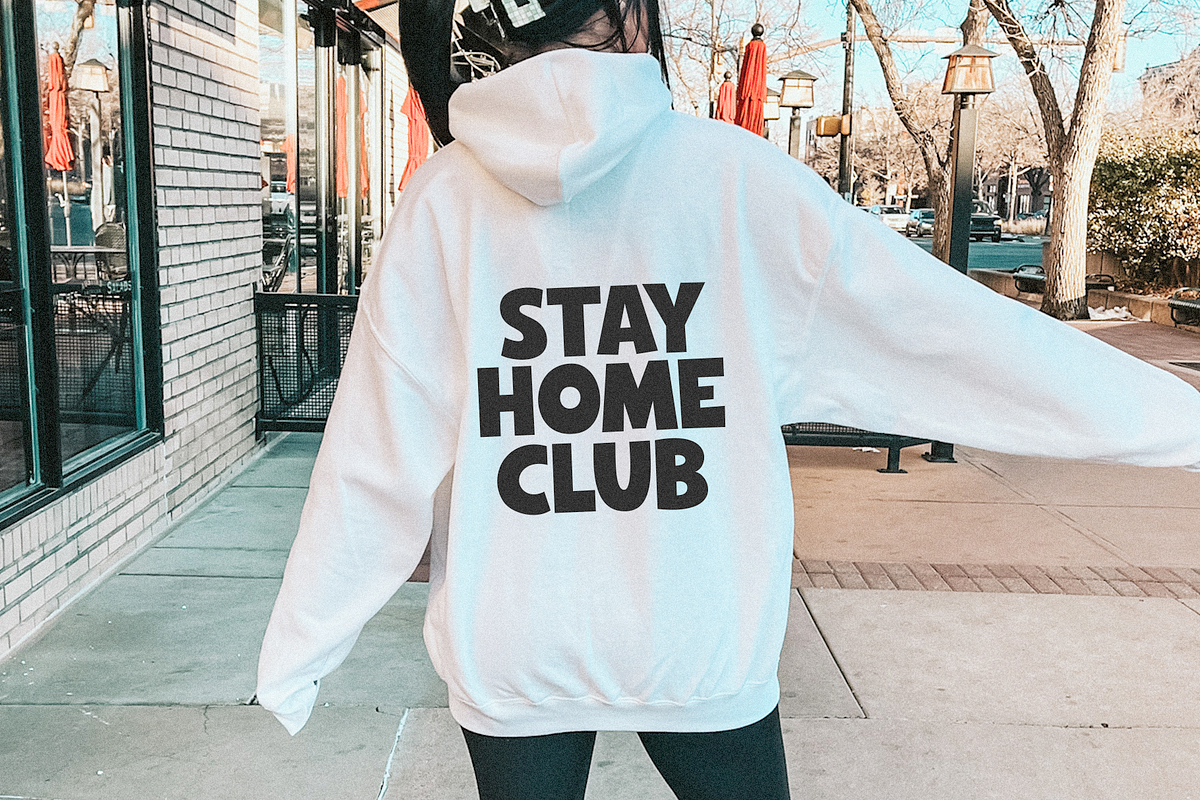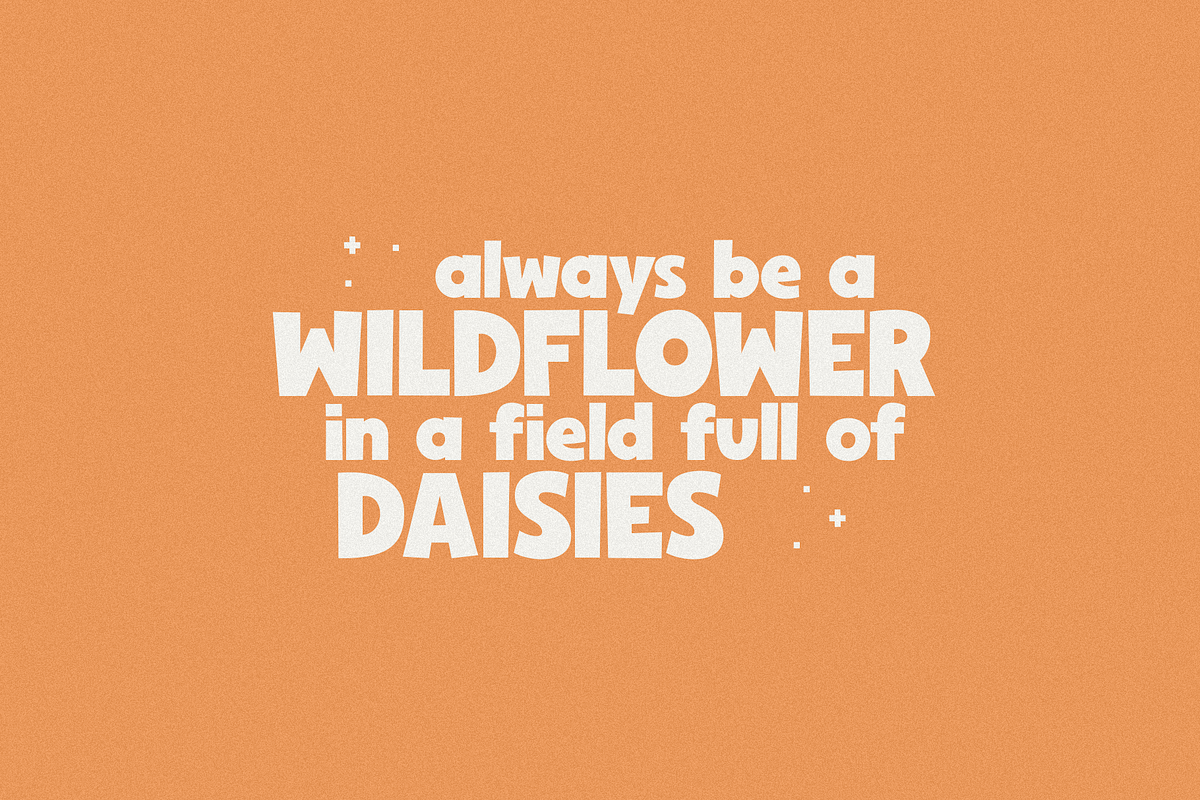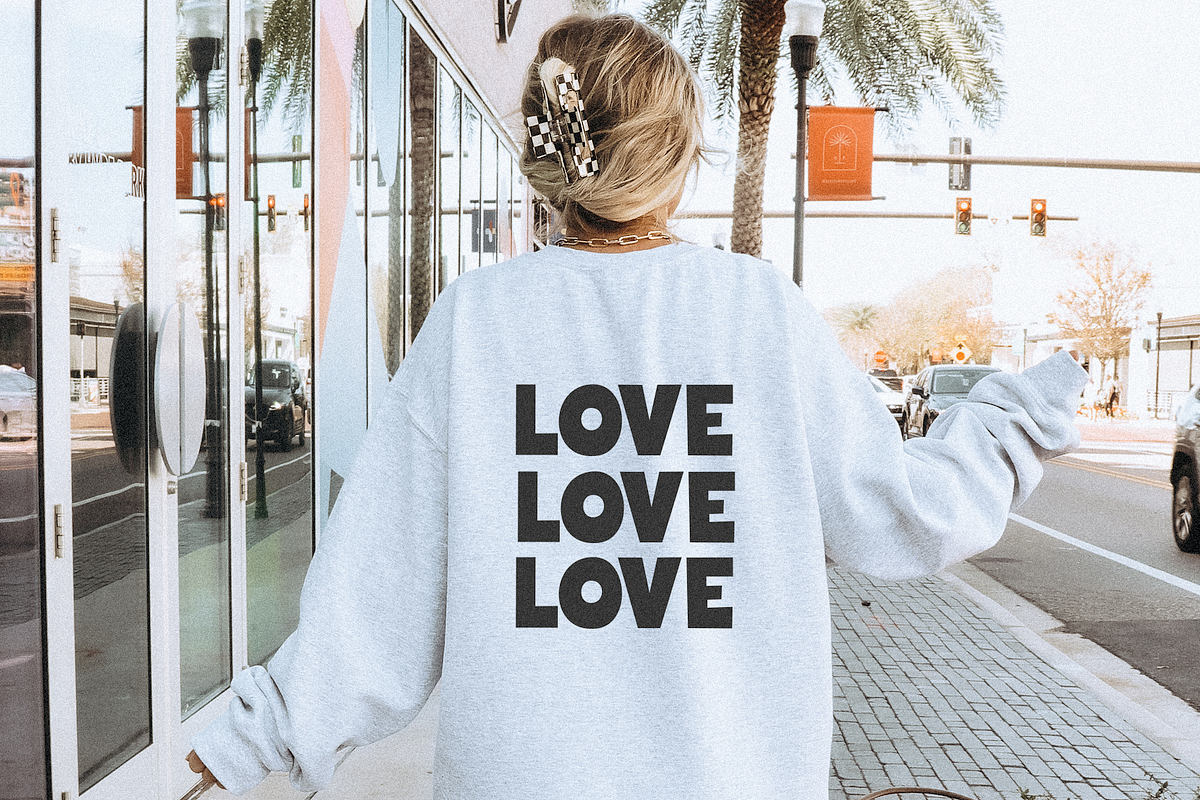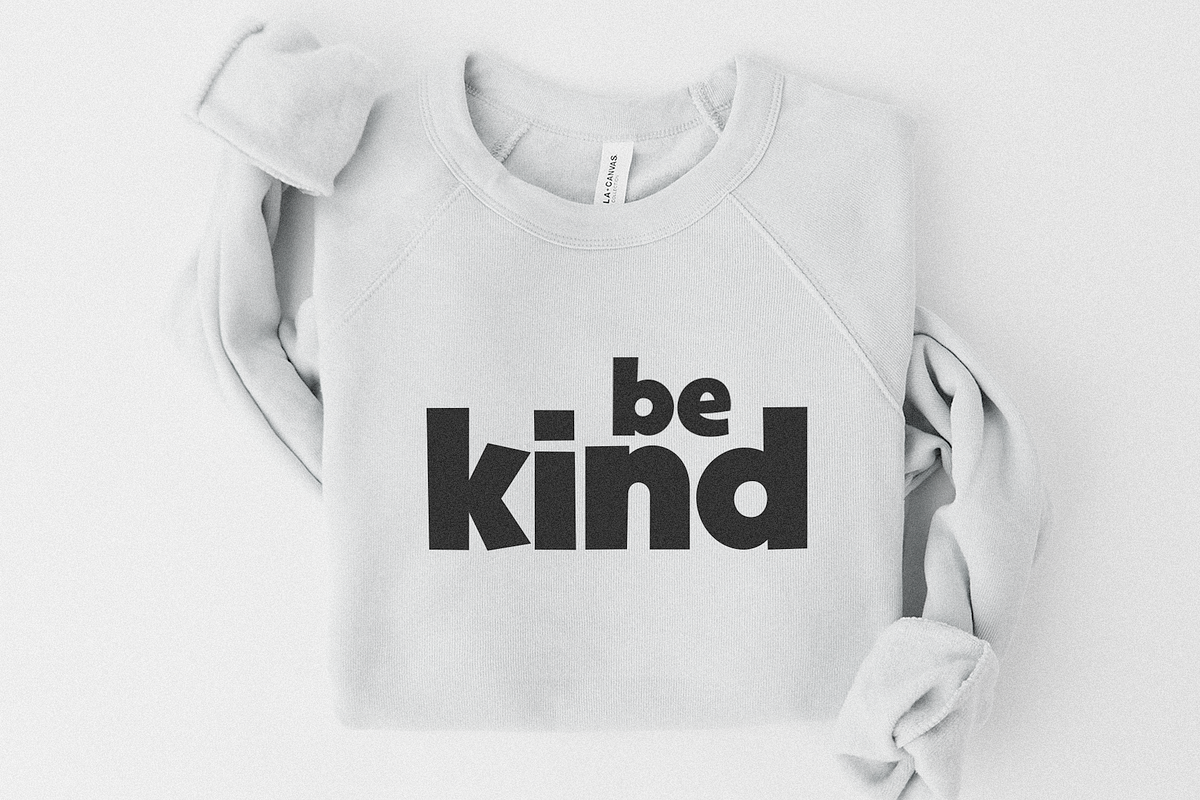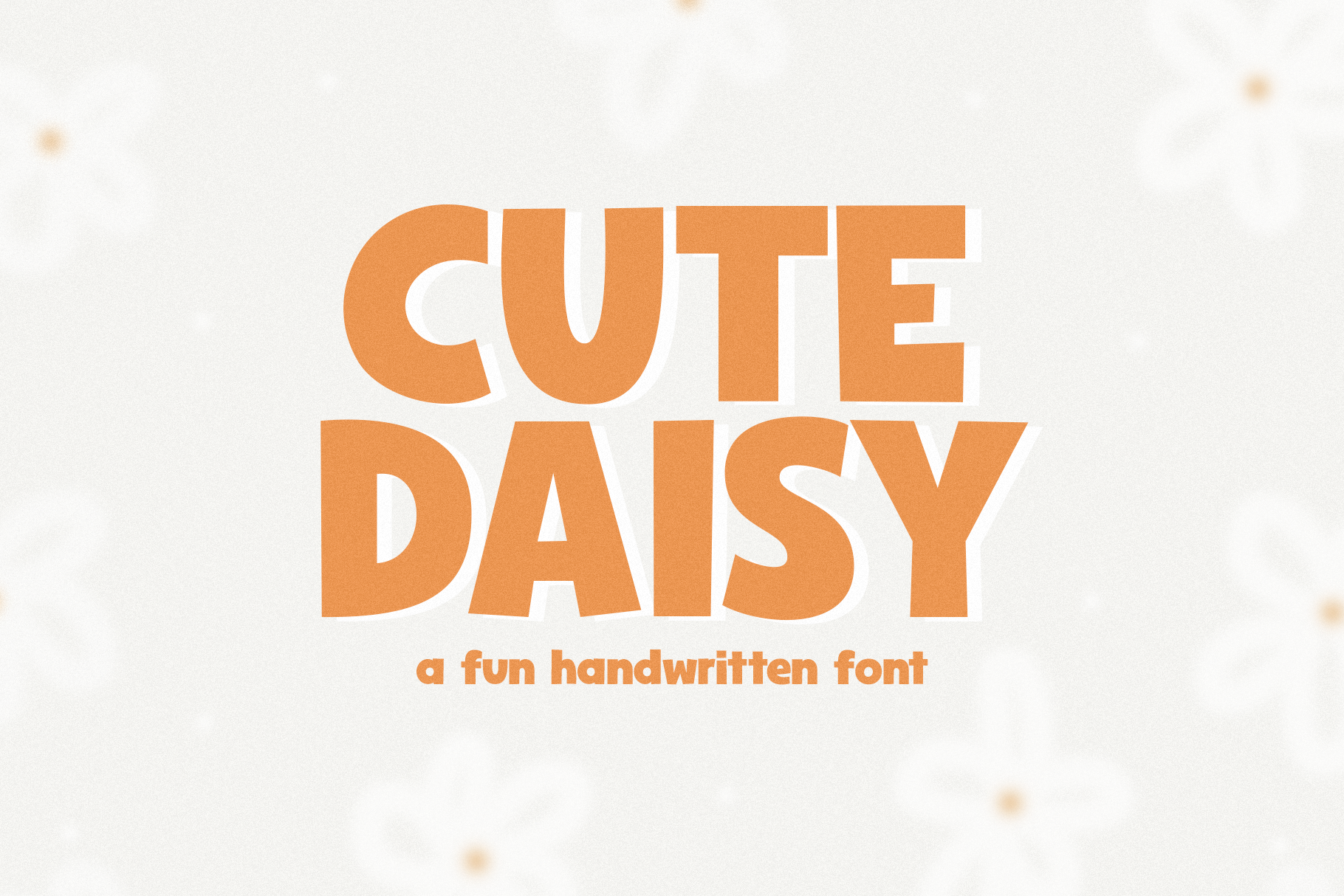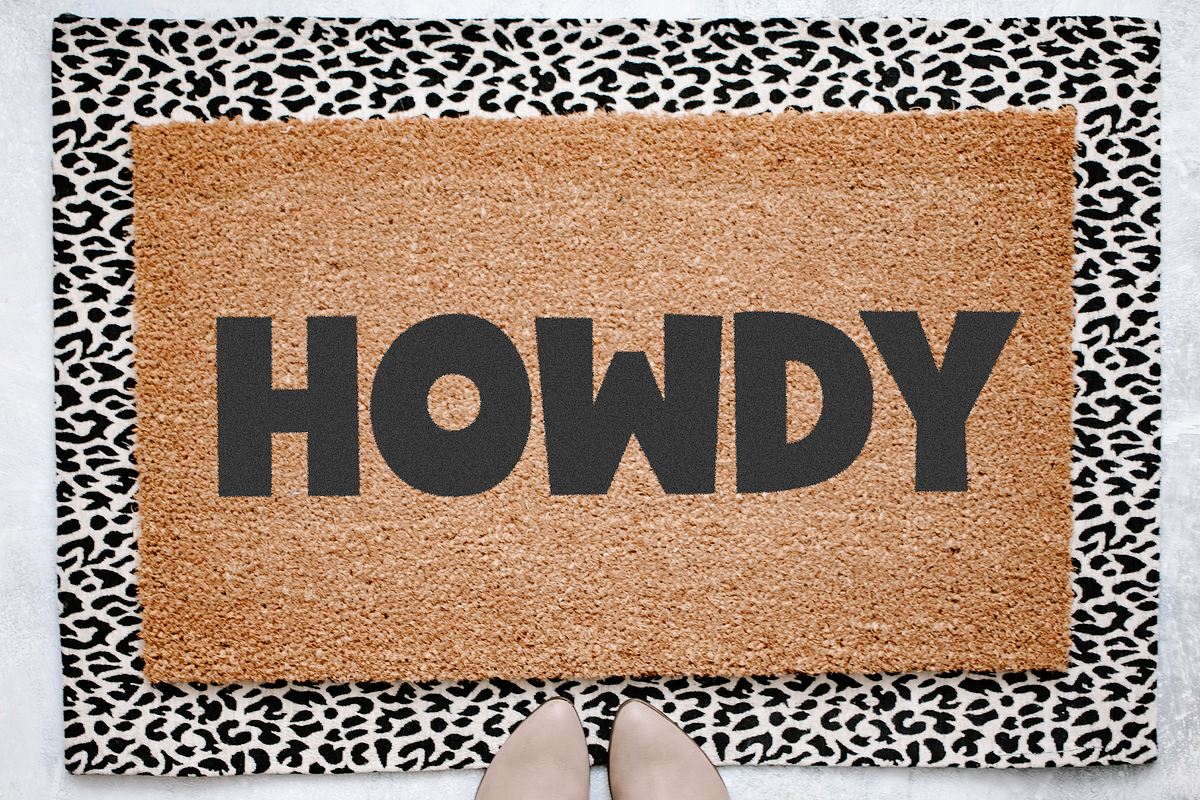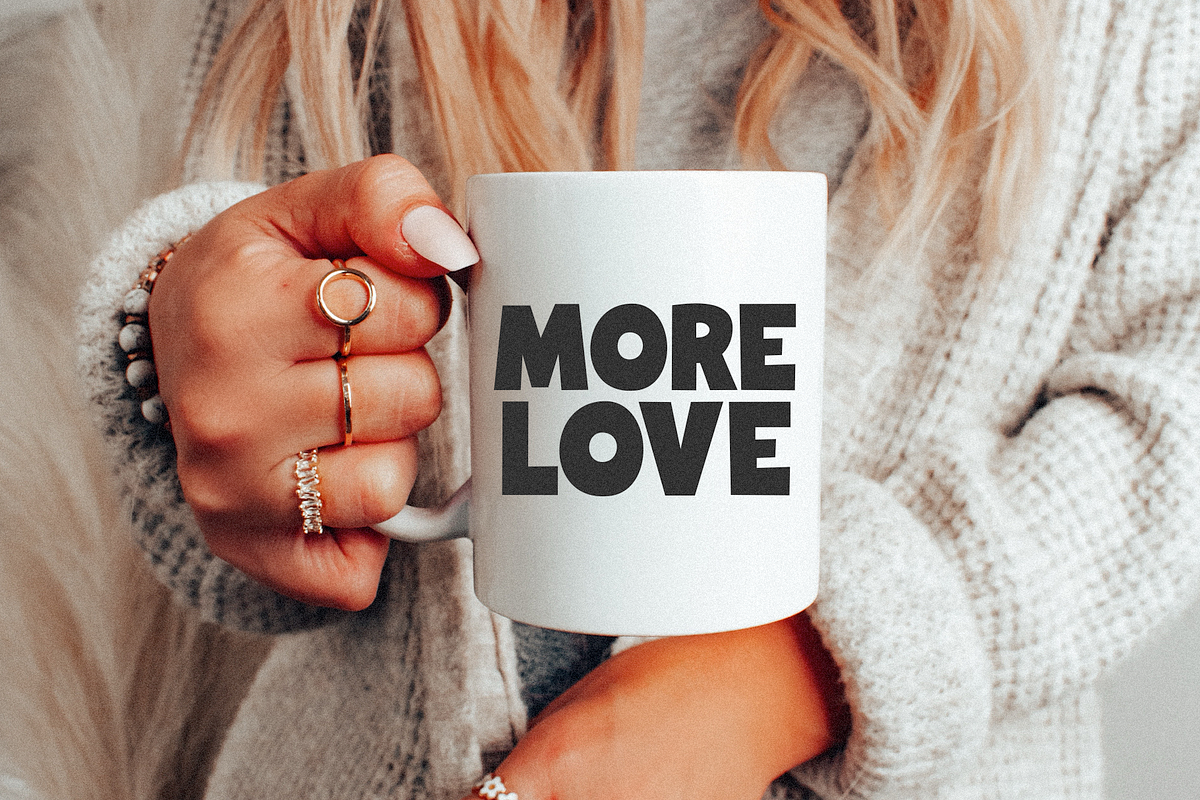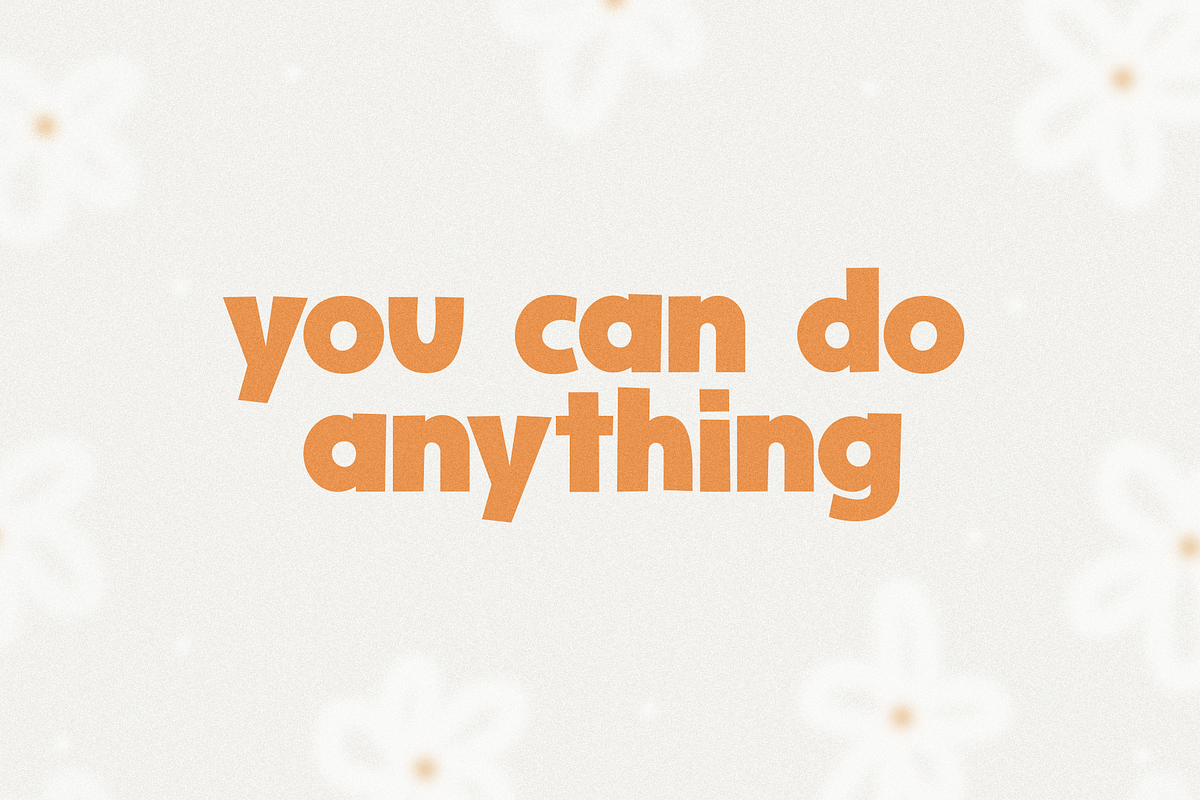
Cute Daisy | Fun Handwritten Font
Cute Daisy is a fun handwritten font!
This font is perfect for svg files, logos, shirts, quotes, social media, craft projects, mugs, doormats, stickers and more!